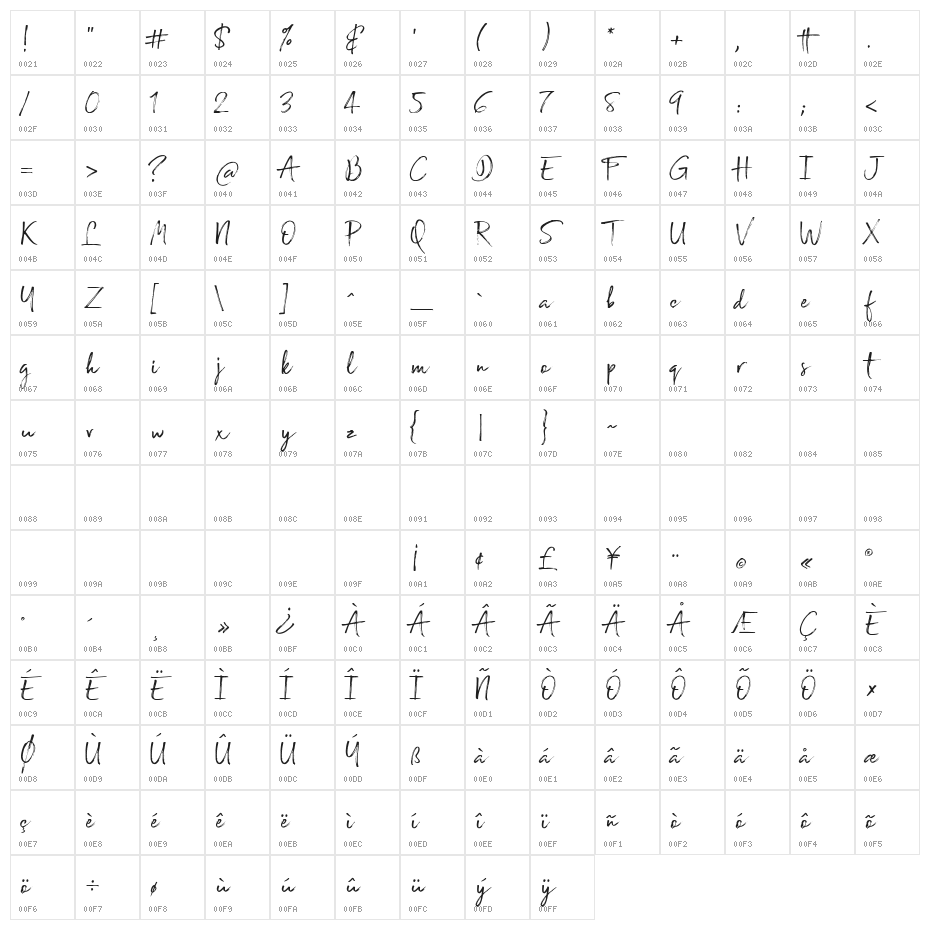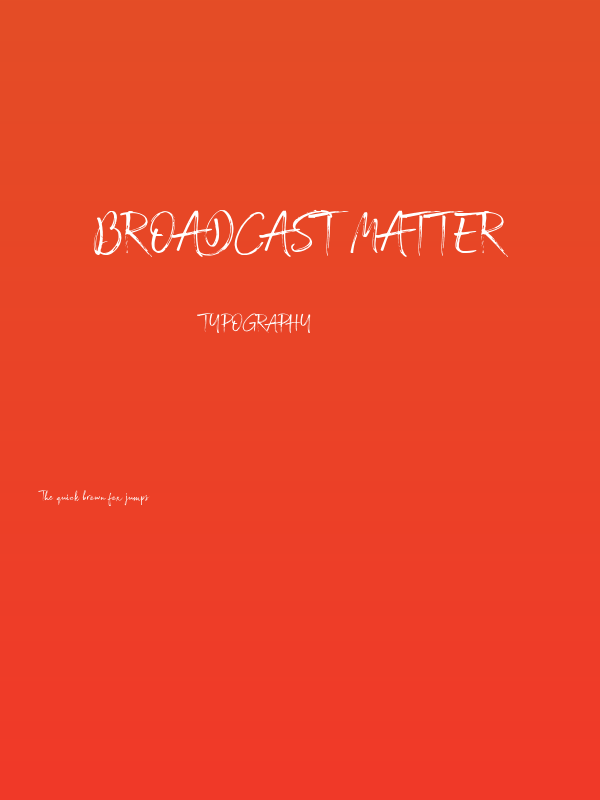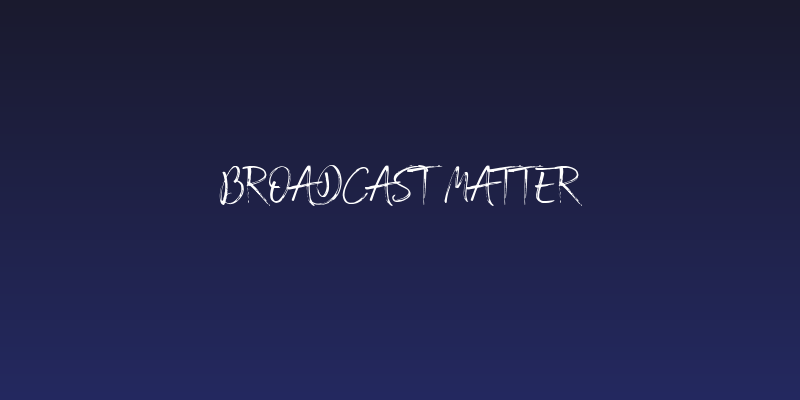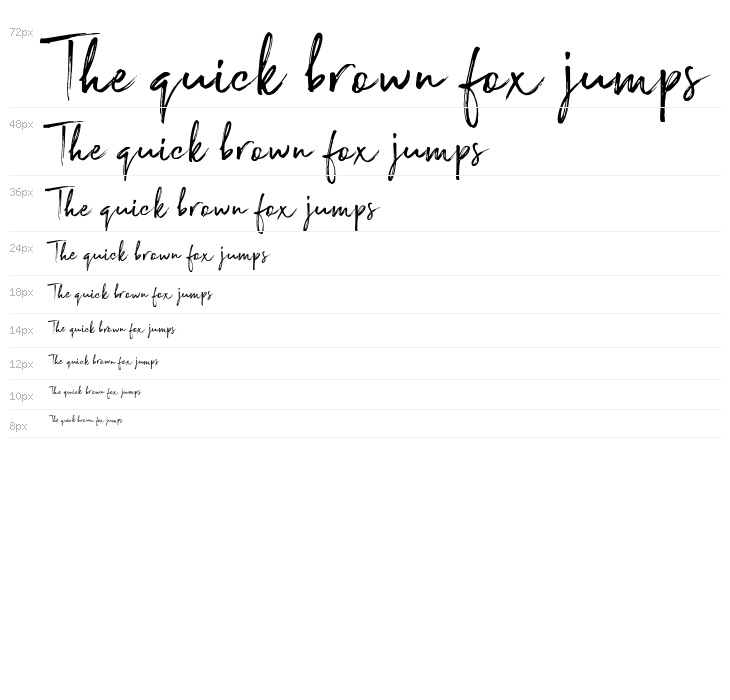
Broadcast Matter Font
Broadcast Matter Description
This font exudes a dynamic and expressive style, characterized by its brush-like strokes and energetic flair. The uppercase letters are bold and slightly irregular, giving a sense of movement and spontaneity. The lowercase letters maintain a cohesive flow, with a more cursive and connected appearance. Numbers and special characters follow the same lively aesthetic, adding to the font's overall artistic appeal. The varied stroke thickness and slight slant contribute to its informal and creative vibe, making it ideal for projects that require a personal touch.
Proposed ProjectsIdeal for creative projects such as posters, invitations, and branding materials that require a personal and artistic touch.